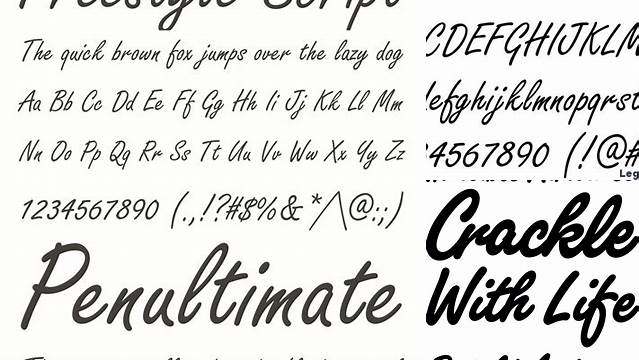
Freestyle Script SH Alt Font: Free Download Guide
Hey guys! Are you looking for that perfect font to add a touch of elegance and flair to your designs? Well, look no further! Today, we're diving deep into the world of Freestyle Script SH Alt font free download. We'll explore everything from its origins and unique characteristics to where you can safely download it and how to use it effectively in your projects. So, buckle up and get ready to unleash your creativity!
1. What is Freestyle Script SH Alt Font?
Freestyle Script SH Alt font is a stylish and flowing script typeface known for its elegant curves and playful loops. It's a variation of the original Freestyle Script, offering alternative characters and stylistic sets that add even more versatility. Think of it as the cooler, slightly more rebellious sibling of the classic Freestyle Script. This font is perfect for projects that need a touch of personality, whether it’s invitations, logos, or social media graphics. Its handwritten feel makes it feel approachable and unique, setting it apart from more formal typefaces. The beauty of Freestyle Script SH Alt lies in its ability to balance sophistication with a casual charm, making it a go-to choice for designers seeking a distinctive yet readable script font. The alternate characters give you more control over the final look, allowing for custom touches that can really elevate your design. It's no wonder so many designers are on the hunt for a Freestyle Script SH Alt font free download.
2. The History and Evolution of Freestyle Script
The story of Freestyle Script begins with its creation by Martin Wait in 1981. Originally designed for Letraset, it quickly became a popular choice for designers due to its casual yet elegant appearance. Over the years, Freestyle Script evolved, with variations like the SH Alt version emerging to offer additional stylistic options. The "SH" in Freestyle Script SH Alt refers to specific stylistic alternates, enhancing the font's versatility. The evolution of this font reflects the changing trends in design, where handwritten and script fonts gained prominence for their ability to add a personal touch to digital and print media. Today, Freestyle Script remains a classic choice, frequently updated and adapted to meet contemporary design needs. Its enduring popularity is a testament to its timeless appeal and adaptability, making it a staple in many designers’ font libraries. The journey from its initial release to the modern-day versions highlights the font's ability to stay relevant and continue inspiring creative projects worldwide. Finding a Freestyle Script SH Alt font free download can connect you with a piece of design history, allowing you to contribute to its ongoing story.
3. Key Characteristics of Freestyle Script SH Alt
What makes Freestyle Script SH Alt font stand out? It's all about the details! This font boasts a unique blend of characteristics that make it a favorite among designers. Its flowing, connected letters create a sense of movement and energy. The alternate characters, indicated by the “SH” in its name, offer variations in letterforms, swashes, and endings, providing greater customization. The font's slightly slanted posture adds a touch of dynamism, making it visually appealing and engaging. Its medium weight ensures readability without sacrificing elegance. Freestyle Script SH Alt excels in headlines, logos, and short bursts of text where its personality can shine. Moreover, the font supports a wide range of characters, including punctuation and symbols, making it versatile for various design applications. The subtle imperfections in its design give it a natural, handwritten feel, distinguishing it from more sterile, digital fonts. These characteristics combine to make Freestyle Script SH Alt a powerful tool for adding character and flair to any project. Securing a Freestyle Script SH Alt font free download means unlocking these unique features for your creative endeavors.
5. Using Freestyle Script SH Alt in Graphic Design
When it comes to graphic design, Freestyle Script SH Alt font is a versatile asset. Its elegant and flowing style makes it perfect for adding a touch of sophistication to various projects. Use it for creating eye-catching logos that stand out from the crowd. Its unique letterforms can make your brand memorable and distinctive. Freestyle Script SH Alt also shines in wedding invitations, adding a personal and romantic touch. Imagine beautiful calligraphy-style invitations that leave a lasting impression. In social media graphics, this font can help you create engaging visuals that capture attention. Use it for quotes, announcements, or promotional content to make your posts more appealing. Furthermore, Freestyle Script SH Alt works well in packaging design, giving products a premium and handcrafted feel. Whether it's labels, boxes, or tags, this font can elevate your brand's image. Remember to use it sparingly and pair it with a simpler sans-serif font for body text to maintain readability. Experiment with different sizes and weights to achieve the perfect balance in your designs. A successful Freestyle Script SH Alt font free download can be a game-changer for your graphic design toolkit.
6. Freestyle Script SH Alt for Logo Design
A logo is the face of a brand, and choosing the right font is crucial. Freestyle Script SH Alt font can bring a unique and memorable quality to logo designs. Its flowing, handwritten style conveys a sense of personality and authenticity, making your brand more relatable. When using it for logos, consider the brand's identity. Is it playful, elegant, or sophisticated? Freestyle Script SH Alt can adapt to different brand aesthetics with careful customization. Use the alternate characters to create a unique letter combination that reflects the brand's values. Experiment with different weights and sizes to find the perfect balance. Pair it with a simple sans-serif font for the tagline to ensure readability. Remember to test the logo in various sizes and formats to ensure it looks good on different platforms. A well-designed logo using Freestyle Script SH Alt can make a lasting impression on your audience. Think of famous brands that use script fonts in their logos – they stand out because of their distinctiveness. With a successful Freestyle Script SH Alt font free download, you can create logos that capture attention and communicate your brand's unique story.
7. Enhancing Wedding Invitations with Freestyle Script SH Alt
Wedding invitations are a couple's first opportunity to set the tone for their special day. Freestyle Script SH Alt font can add a touch of romance and elegance to these important keepsakes. Its flowing, calligraphic style evokes a sense of timeless beauty, making it perfect for conveying the significance of the occasion. When designing wedding invitations, use Freestyle Script SH Alt for the names of the couple, the date, and other key details. Pair it with a classic serif or sans-serif font for the body text to ensure readability. Experiment with different colors and paper textures to enhance the overall look. Consider adding embellishments such as floral motifs or decorative borders to complement the font's elegance. Remember to keep the design clean and uncluttered, allowing the font to shine. A beautifully designed wedding invitation using Freestyle Script SH Alt can create a lasting impression on your guests. It sets the stage for a memorable celebration and becomes a cherished keepsake for years to come. Finding a Freestyle Script SH Alt font free download can help you create stunning invitations without breaking the bank.
8. Utilizing Freestyle Script SH Alt in Social Media Graphics
In the fast-paced world of social media, capturing attention is essential. Freestyle Script SH Alt font can help you create eye-catching graphics that stand out from the crowd. Its unique and stylish appearance makes your posts more engaging and memorable. Use it for creating quotes, announcements, and promotional content. Pair it with vibrant images and bold colors to maximize its impact. When using Freestyle Script SH Alt in social media graphics, consider the platform. Instagram, Facebook, and Twitter each have their own design conventions. Adapt your graphics to suit the platform's aesthetic. Use the font sparingly and ensure it is legible on small screens. Experiment with different sizes and weights to find the perfect balance. Add a touch of animation or motion graphics to make your posts even more dynamic. Remember to maintain a consistent brand identity across all your social media channels. A well-designed social media graphic using Freestyle Script SH Alt can significantly boost your engagement and reach. A successful Freestyle Script SH Alt font free download can be a valuable asset for your social media marketing efforts.
9. Freestyle Script SH Alt for Packaging Design
Packaging is a crucial aspect of branding, and the right font can make a significant difference. Freestyle Script SH Alt font can add a touch of elegance and sophistication to your packaging design, helping your products stand out on the shelves. Its handwritten style conveys a sense of craftsmanship and quality, making your brand more appealing. Use it for labels, boxes, and tags to give your products a premium feel. When using Freestyle Script SH Alt in packaging design, consider the product's target audience. Is it a luxury item, a handmade craft, or a gourmet food? Adapt the font's style to match the product's identity. Pair it with high-quality materials and finishes to enhance the overall look. Ensure the font is legible and easy to read, even on small labels. Experiment with different colors and textures to create a visually appealing design. Remember to comply with all labeling regulations and guidelines. A well-designed package using Freestyle Script SH Alt can attract customers and communicate your brand's unique story. A Freestyle Script SH Alt font free download can be a cost-effective way to elevate your packaging design.
10. Pairing Freestyle Script SH Alt with Other Fonts
Freestyle Script SH Alt is beautiful on its own, but pairing it with the right font can elevate your designs even further. The key is to create contrast while maintaining harmony. For headlines and titles, pair Freestyle Script SH Alt with a clean, modern sans-serif font like Open Sans or Montserrat. This combination creates a balance between elegance and readability. For body text, opt for a classic serif font like Times New Roman or Garamond. This ensures that your content is easy to read and doesn't compete with the script font's flair. When pairing fonts, consider the overall tone of your design. If you're aiming for a sophisticated look, use a more formal serif font. If you want a more casual feel, choose a friendly sans-serif. Experiment with different font weights and sizes to find the perfect balance. Remember to maintain a consistent visual hierarchy throughout your design. Freestyle Script SH Alt should be used sparingly to highlight key elements, while the supporting font handles the bulk of the text. A well-chosen font pairing can enhance the impact of Freestyle Script SH Alt and create a cohesive design. So, explore different combinations and find what works best for your project. A successful Freestyle Script SH Alt font free download paired with the right font can create stunning results.
11. Alternatives to Freestyle Script SH Alt
If you're unable to find a Freestyle Script SH Alt font free download, or if it doesn't quite fit your project, don't worry! There are plenty of fantastic alternatives to consider. Brush Script MT is a classic choice with a similar handwritten feel. It's widely available and easy to use. Another option is Scriptina, a flowing and elegant script font that's perfect for invitations and logos. For a more modern twist, try Pacifico, a casual and friendly script font that works well for social media graphics. If you're looking for something bolder, consider Lobster, a thick and eye-catching script font that's great for headlines. Another excellent alternative is Great Vibes, a sophisticated and refined script font that's perfect for wedding invitations. Remember to choose a font that complements your design and conveys the right message. Experiment with different options and find the perfect fit for your project. Each of these alternatives offers a unique style and personality, so explore them to find the perfect match for your design needs. Even without a Freestyle Script SH Alt font free download, you can still achieve a beautiful and professional look with these great alternatives.
12. Legal Considerations When Downloading Free Fonts
Downloading free fonts can be tempting, but it's essential to be aware of the legal considerations involved. Not all free fonts are truly free for all uses. Many free fonts come with specific licenses that restrict how you can use them. Before downloading any font, carefully read the license agreement. Pay attention to whether the font is free for personal use only or if it can be used for commercial projects. Some licenses may require you to give credit to the font designer. Others may prohibit you from modifying the font or redistributing it. Downloading fonts from untrustworthy sources can also expose you to legal risks. Some websites may distribute fonts that infringe on copyright laws. Using such fonts can lead to legal action from the font's owner. Always download fonts from reputable sources that clearly state the license terms. If you're unsure about the license, it's best to err on the side of caution and choose a different font. A Freestyle Script SH Alt font free download may seem like a great deal, but it's crucial to ensure that you're complying with the law. Understanding the legal aspects of font usage can save you from potential legal headaches down the road.
13. Common Mistakes to Avoid When Using Script Fonts
Script fonts like Freestyle Script SH Alt can add a touch of elegance to your designs, but they can also be misused. One common mistake is using script fonts for large blocks of text. Script fonts are generally less readable than serif or sans-serif fonts, making them unsuitable for long paragraphs. Another mistake is using too many different script fonts in one design. This can create a cluttered and confusing look. Stick to one or two script fonts at most and pair them with simpler fonts for contrast. Avoid using script fonts in all caps, as this can make them even harder to read. Pay attention to the spacing between letters and lines. Too little spacing can make the text look cramped, while too much spacing can make it look disjointed. Be mindful of the font size. Script fonts often look best when used at larger sizes. Finally, don't overuse script fonts. Use them sparingly to highlight key elements and add a touch of personality. Avoiding these common mistakes will help you use script fonts effectively and create visually appealing designs. A Freestyle Script SH Alt font free download can be a valuable asset, but it's essential to use it wisely.
14. Tips for Improving Readability with Freestyle Script SH Alt
While Freestyle Script SH Alt is beautiful, readability is key. Here are some tips to make sure your audience can actually read what you're writing:
- Use it for Headlines and Short Phrases: Avoid using it for long paragraphs of body text.
- Increase Letter Spacing: Give the letters room to breathe.
- Choose a Readable Size: Make sure the font is large enough to be easily read, especially on screens.
- Contrast is Key: Use it against a solid, contrasting background.
- Pair with a Simple Font: Combine it with a clear sans-serif or serif font for body text.
15. Freestyle Script SH Alt and Branding
Freestyle Script SH Alt font can be a powerful tool for branding, especially if you're aiming for a sophisticated, personal, or artistic feel. It's great for brands in the beauty, fashion, or creative industries. However, it's not ideal for brands that need to project a sense of authority or seriousness. Consider your target audience and the message you want to convey before using this font in your branding. A well-executed brand identity using Freestyle Script SH Alt can be memorable and impactful.
16. The Psychology of Script Fonts
Script fonts evoke feelings of elegance, creativity, and personalization. They can make a design feel more human and approachable. However, they can also be perceived as less professional than more formal fonts. Understanding the psychology of script fonts can help you use them effectively in your designs. Consider the emotional impact you want to create and choose a font that aligns with your brand's personality.
17. How to Install Freestyle Script SH Alt on Your Computer
Okay, you've found a Freestyle Script SH Alt font free download, now what? Here's how to install it:
- Download the Font File: Usually a .ttf or .otf file.
- Extract the File: If it's in a zip folder, extract it.
- Right-Click and Install: Right-click on the font file and select "Install".
- Restart Your Programs: You might need to restart your design programs for the font to appear.
18. Troubleshooting Font Issues
Sometimes fonts can be a bit finicky. If you're having trouble with Freestyle Script SH Alt, try these tips:
- Restart Your Computer: This often fixes minor font issues.
- Clear Your Font Cache: Your computer might be using an old version of the font.
- Reinstall the Font: Sometimes a fresh installation can solve problems.
- Check for Font Conflicts: Other fonts might be interfering with Freestyle Script SH Alt.
19. Exploring Different Weights and Styles of Freestyle Script
While you might be focused on Freestyle Script SH Alt, explore other weights and styles of the Freestyle Script family. Each variation offers a unique look and feel, allowing you to find the perfect match for your project. Experiment with different options to discover the full potential of this versatile typeface.
20. Mastering Kerning and Tracking with Freestyle Script SH Alt
Kerning (adjusting the space between individual letters) and tracking (adjusting the overall spacing of a block of text) are crucial for achieving optimal readability and visual appeal with Freestyle Script SH Alt. Pay close attention to the spacing between letters and words to ensure a balanced and harmonious look. Fine-tune these settings to create a polished and professional design.
21. The Future of Script Fonts in Design
Script fonts are constantly evolving, with new styles and variations emerging all the time. As design trends shift, script fonts continue to adapt and find new applications. Stay up-to-date with the latest trends in script font design to keep your work fresh and relevant. Embrace new technologies and techniques to push the boundaries of what's possible with script fonts.
22. Freestyle Script SH Alt vs. Calligraphy
While Freestyle Script SH Alt mimics the look of calligraphy, it's important to understand the differences. Calligraphy is a hand-drawn art form, while Freestyle Script SH Alt is a digital font. Calligraphy offers a level of customization and uniqueness that a font cannot replicate. However, Freestyle Script SH Alt provides a convenient and consistent way to achieve a calligraphic look in your designs.
23. Customizing Freestyle Script SH Alt
Most design software allows you to customize fonts to some extent. Experiment with different effects, such as outlines, shadows, and gradients, to create unique variations of Freestyle Script SH Alt. Use these customization options to tailor the font to your specific design needs and create a personalized look.
24. Inspiration from Designs Using Freestyle Script SH Alt
Look for examples of designs that effectively use Freestyle Script SH Alt for inspiration. Analyze how the font is used in different contexts and identify what makes those designs successful. Use these examples as a starting point for your own projects and adapt the techniques to create your own unique designs.
25. Creating a Font Mood Board
A font mood board is a collection of fonts, colors, and images that inspire your design. Create a mood board specifically for projects using Freestyle Script SH Alt to help you visualize the overall look and feel of your design. This can help you make informed decisions about font pairings, colors, and other design elements.
26. Testing Your Designs with Different Audiences
Before finalizing your designs, test them with different audiences to get feedback on their readability and visual appeal. Show your designs to people of different ages, backgrounds, and design expertise to gather a diverse range of perspectives. Use this feedback to refine your designs and ensure they resonate with your target audience.
27. The Importance of White Space
White space, also known as negative space, is the empty space around and between design elements. Using white space effectively can enhance the readability and visual appeal of your designs. Give Freestyle Script SH Alt plenty of room to breathe by surrounding it with ample white space. This will help it stand out and make your designs more elegant and sophisticated.
28. Maintaining Consistency Across Your Designs
Consistency is key to creating a strong and recognizable brand identity. Use Freestyle Script SH Alt consistently across all your designs to reinforce your brand's personality and create a cohesive look. Establish clear guidelines for font usage and stick to them to maintain consistency across all your marketing materials.
29. Resources for Learning More About Typography
There are many online resources available for learning more about typography. Explore websites, blogs, and online courses to deepen your knowledge of font selection, pairing, and usage. Mastering the principles of typography will help you create more effective and visually appealing designs.
30. Staying Creative and Experimenting with Fonts
The world of typography is vast and ever-evolving. Stay creative and experiment with different fonts, styles, and techniques to discover new possibilities. Don't be afraid to break the rules and push the boundaries of what's possible with typography. The more you experiment, the more you'll learn and the more unique your designs will become.